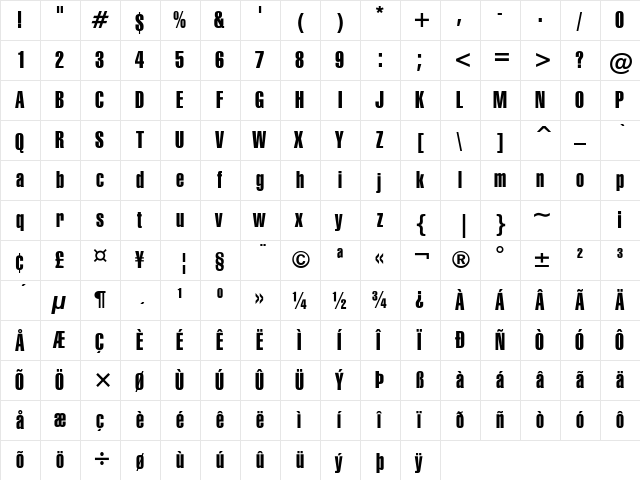
HailstenCompressed Bold Font Preview
HailstenCompressed Bold
Design Context for HailstenCompressed Typeface
HailstenCompressed is a composed and adaptable typeface that performs quietly and consistently across a wide range of design contexts. The heavy weight commands attention and anchors typographic hierarchies.